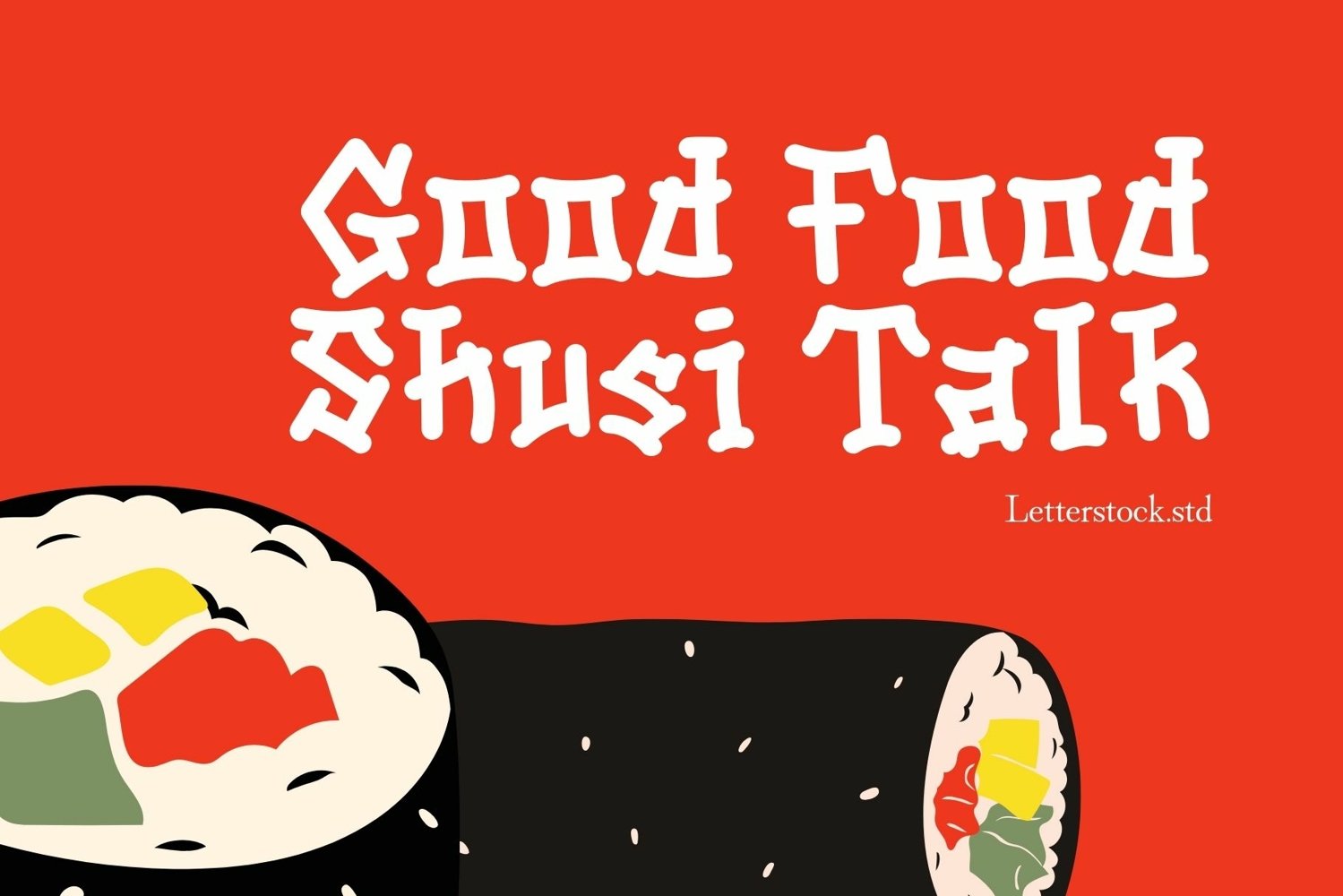
Java Sakura
Introducing "Java Sakura" - Your Original Hand-Drawn Font with Japanese Typography Style
Elevate your designs with the enchanting allure of "Java Sakura," a font meticulously crafted with original hand-drawn artistry and infused with the elegant essence of Japanese typography. Perfect for adding a touch of sophistication to your projects, this font is ideal for posters, invitations, and branding materials, exuding a serene charm that captivates the senses.
Key Features:
Original Hand-Drawn Craftsmanship: Each character in "Java Sakura" is meticulously hand-drawn, ensuring a unique and authentic appearance that reflects the beauty of Japanese calligraphy.
Japanese Typography Style: Immerse yourself in the elegance of Japanese typography with the graceful strokes and subtle curves of "Java Sakura," adding an element of cultural richness to your designs.
Why Choose "Java Sakura":
Craft posters and invitations that evoke the tranquility of Japanese aesthetics, captivating your audience with the graceful charm of "Java Sakura."
Create branding materials that resonate with elegance and sophistication, thanks to the timeless appeal of Japanese typography embodied in this font.
Establish a brand identity that reflects cultural appreciation and artistic refinement, setting your designs apart with the distinctiveness of "Java Sakura."